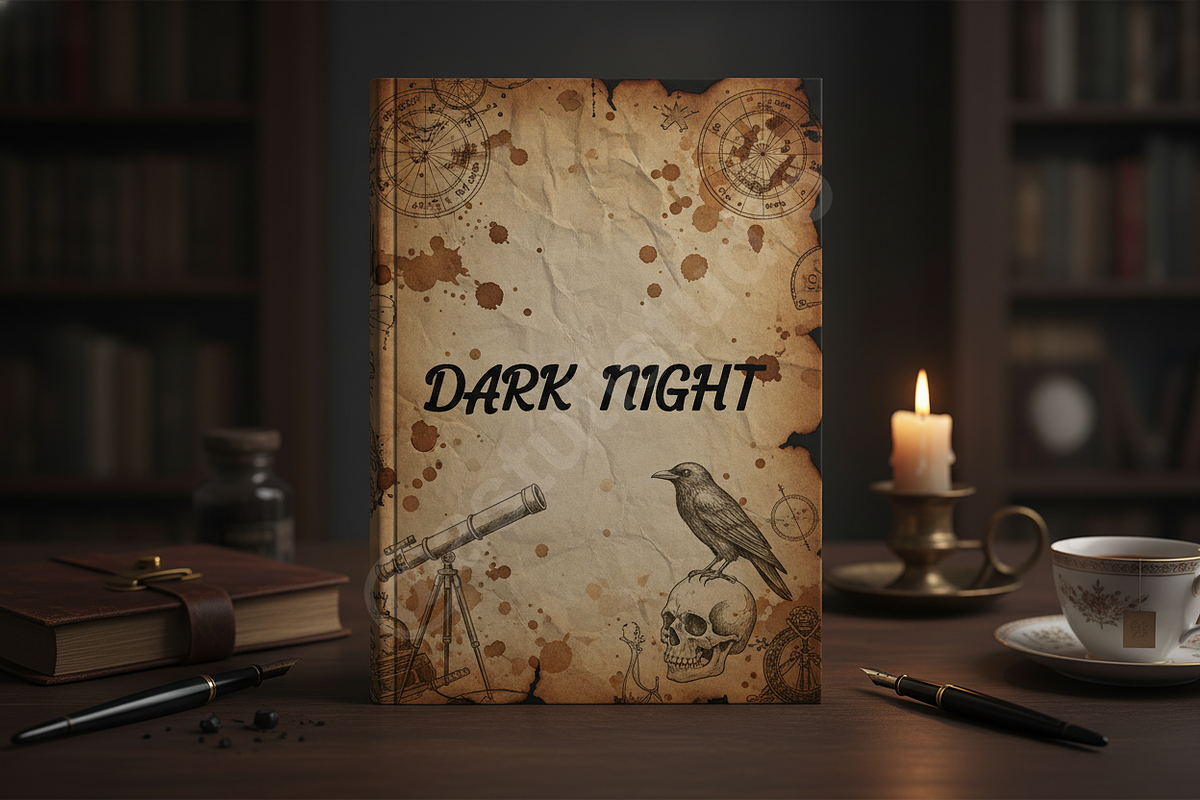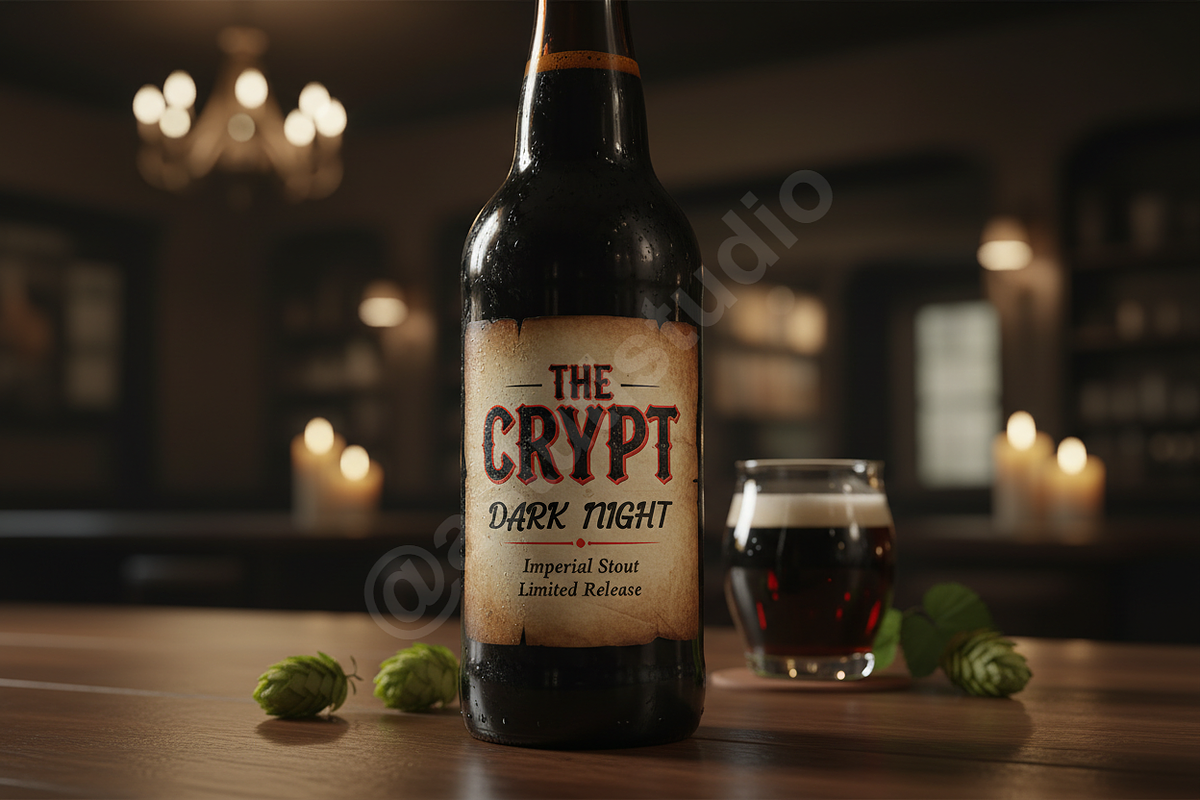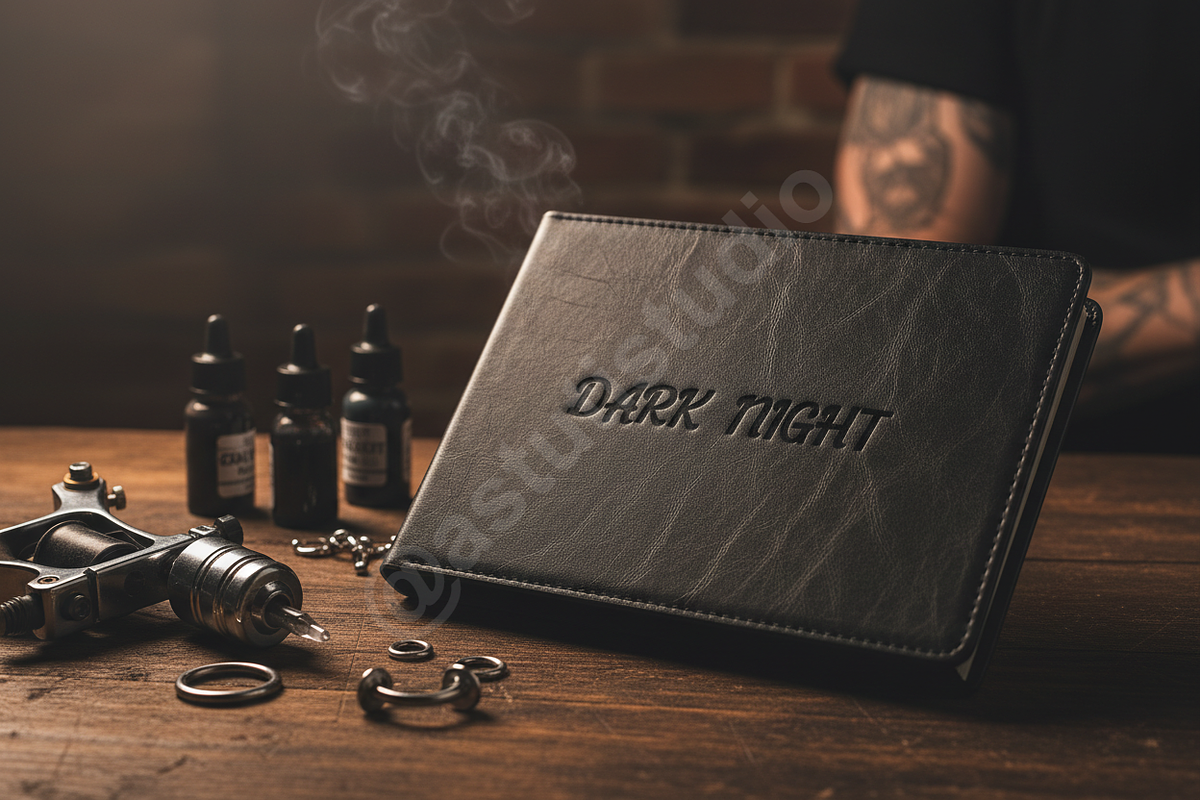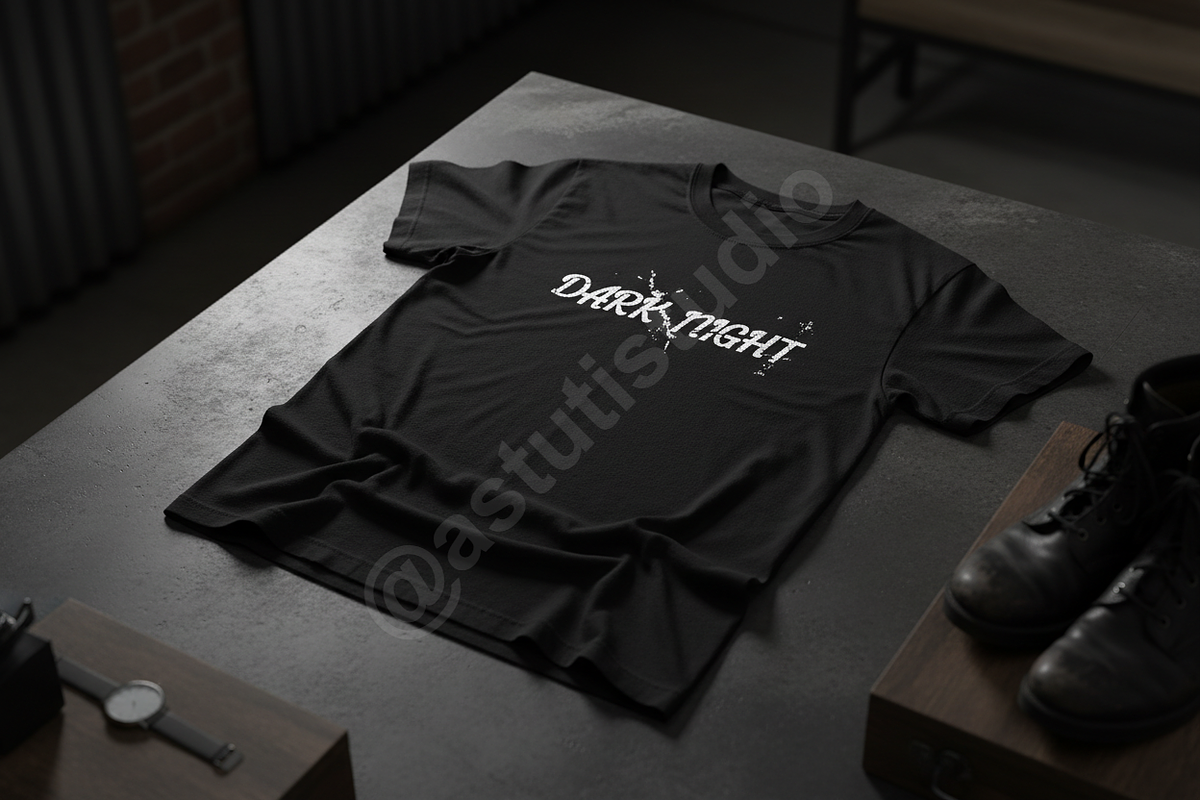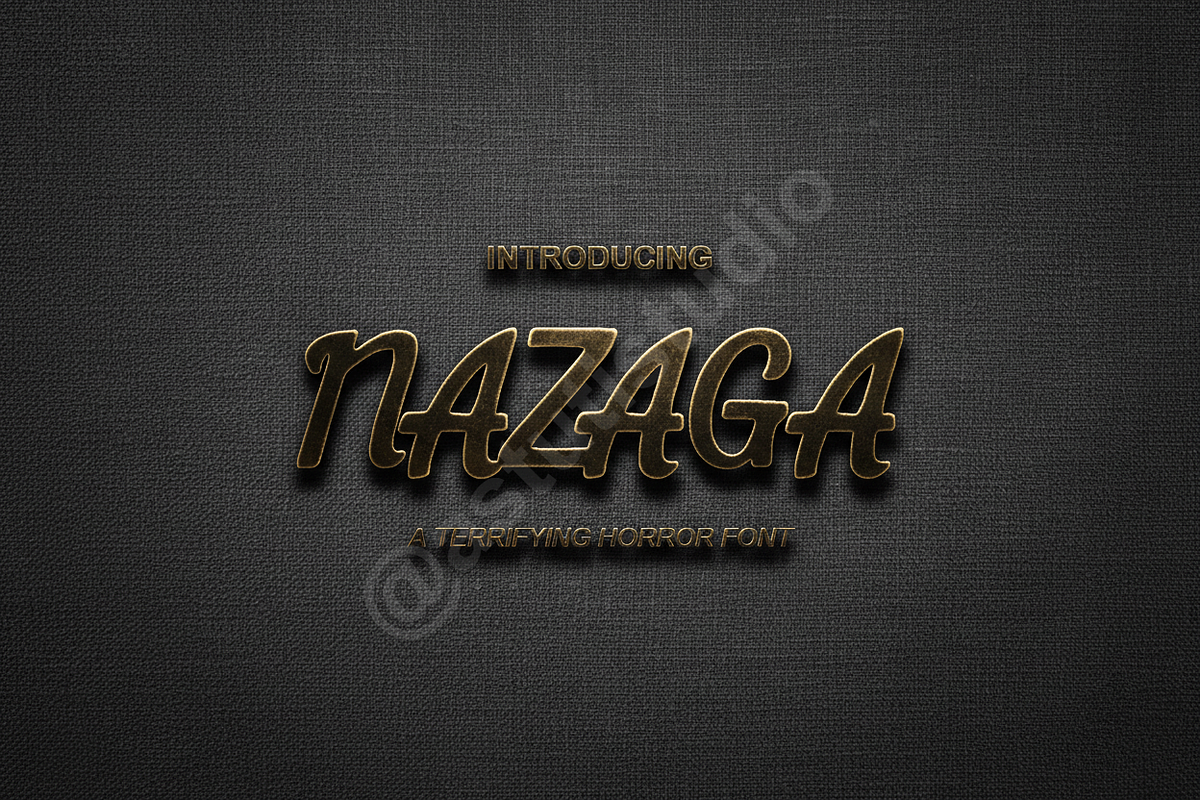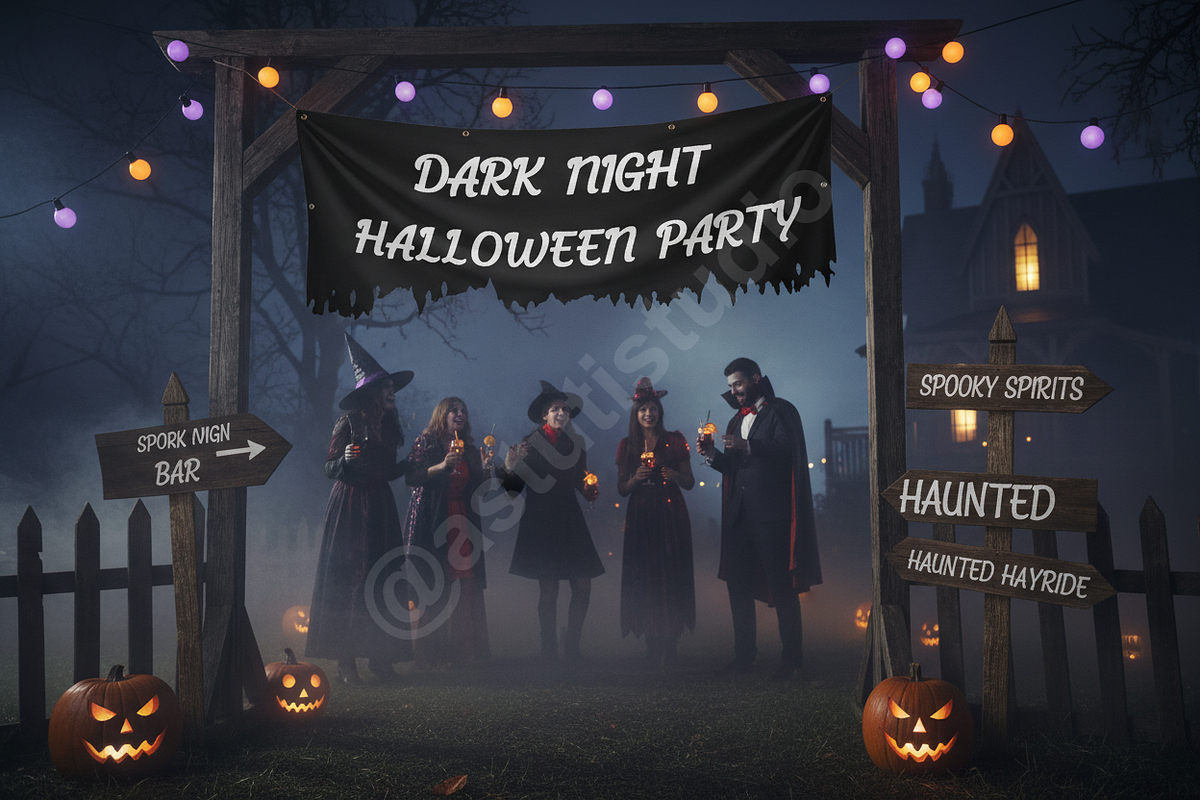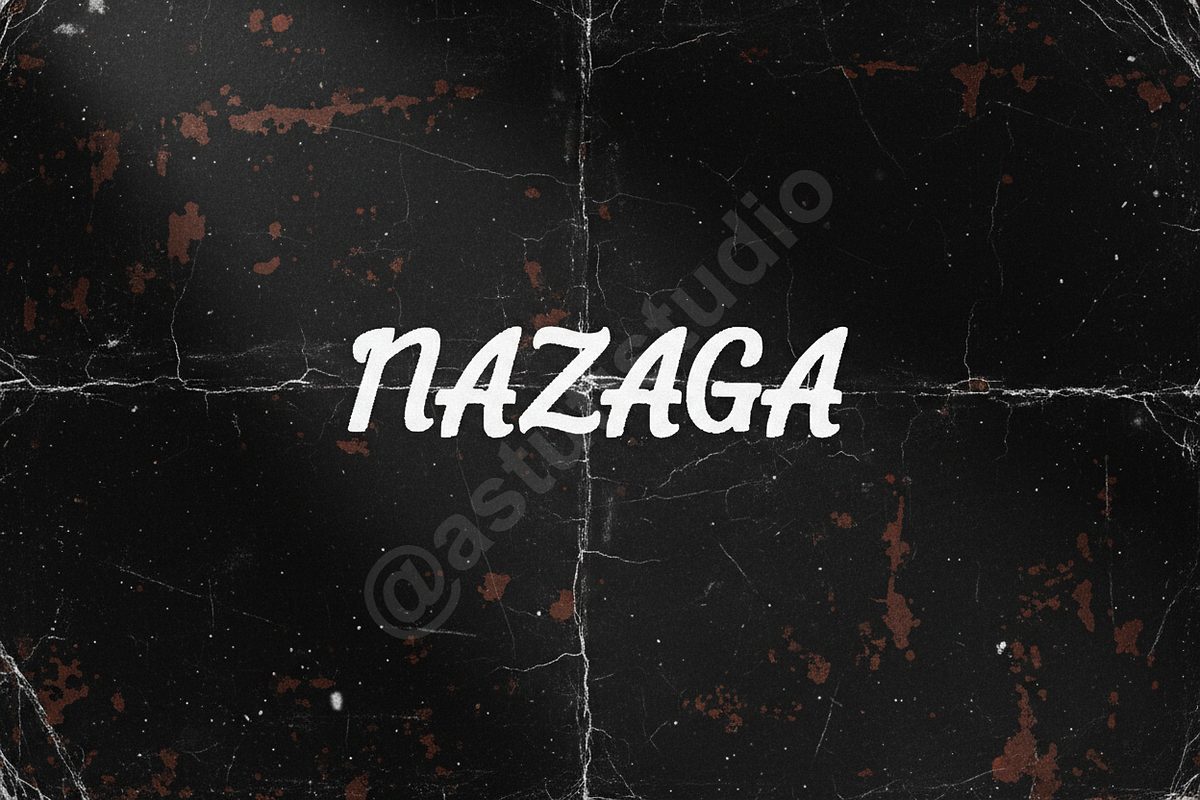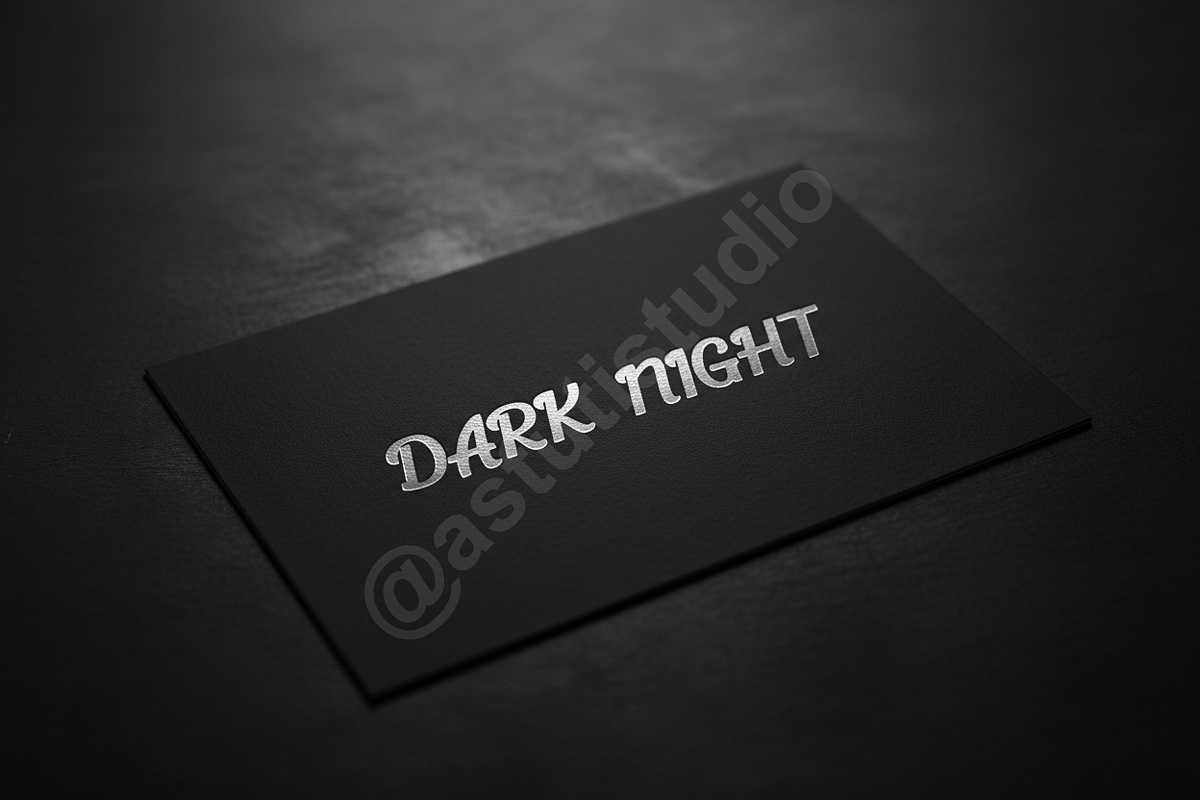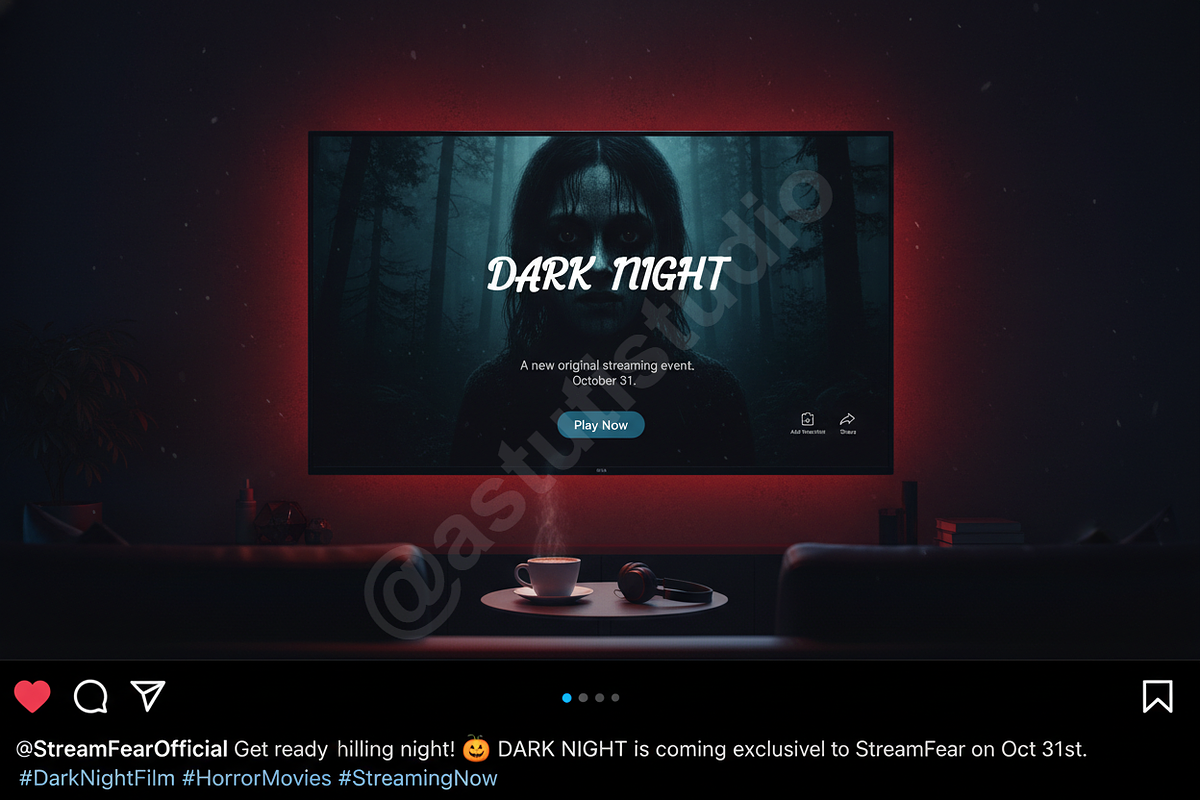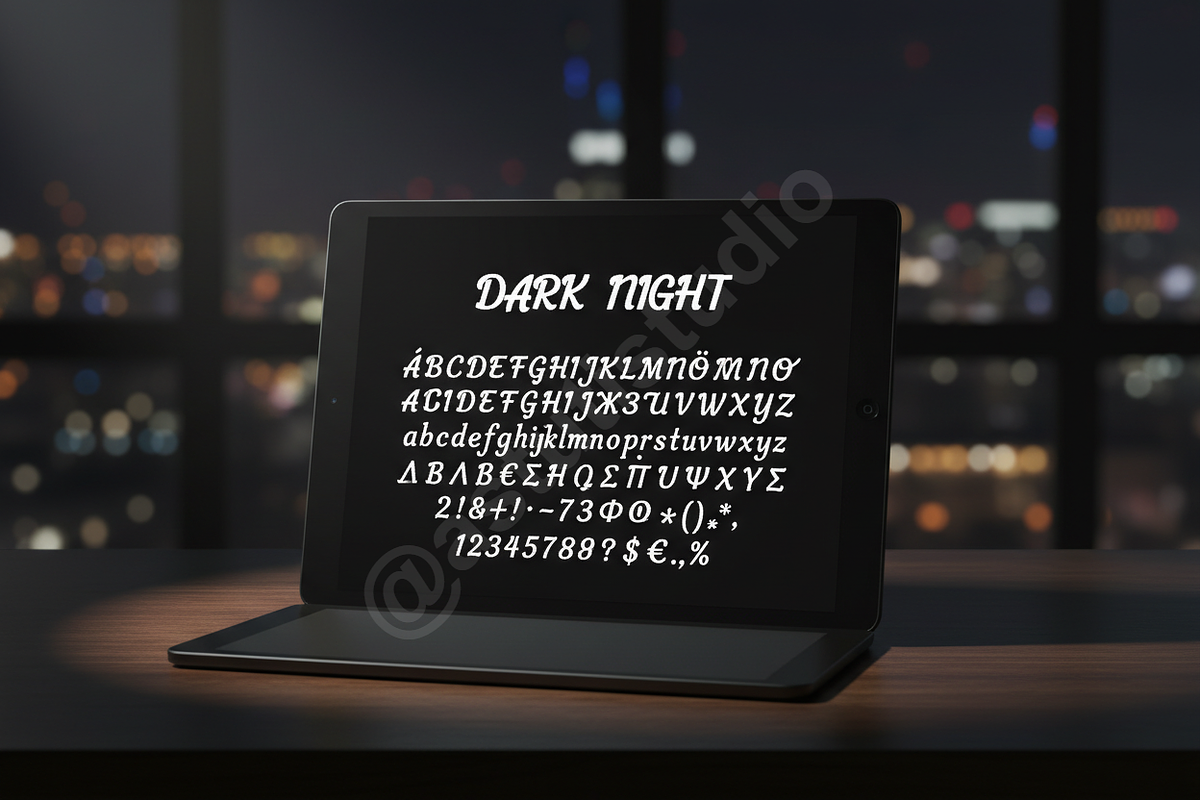
Nazaga - Elegant Modern Serif Typefa
INTRODUCTION Nazaga is a premium serif typeface crafted for those who demand sophistication and grace in their design work. Inspired by high-fashion aesthetics and timeless editorial layouts, Nazaga offers a perfect balance between sharp, contemporary edges and classical proportions. This font is specifically engineered to elevate luxury branding, high-end packaging, and chic social media content.
- Elegant, high-contrast serif design
- Sophisticated ligatures for a custom look
- Stylistic alternates for creative flexibility
- Comprehensive multilingual support
- Precise kerning and letter spacing
- Clean and legible at both large and small scales